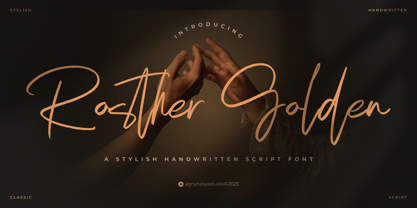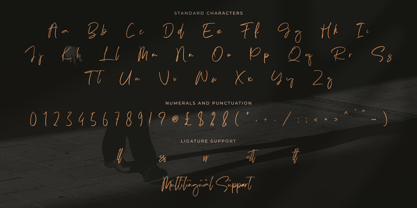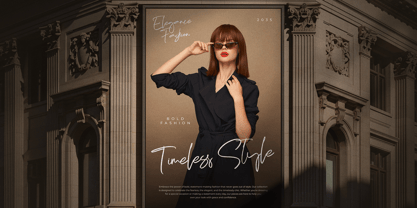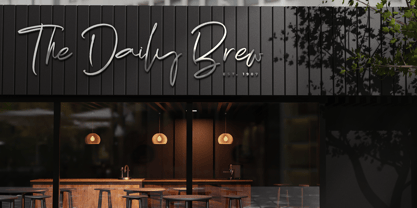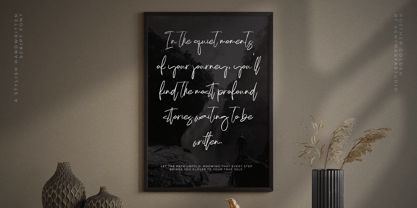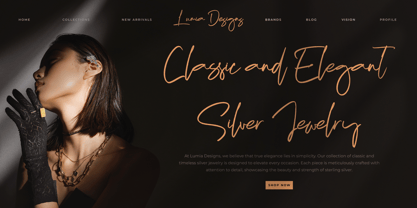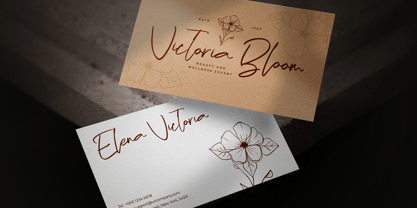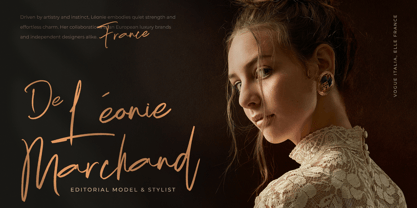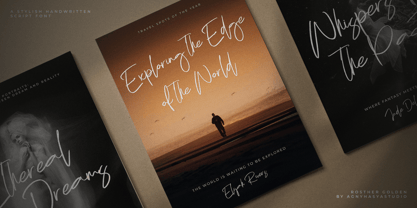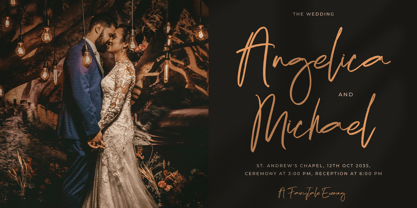
Rosther Golden
by Agny Hasya Studio
The Rosther Golden Font Family was designed by Firman Maulana and published by Agny Hasya Studio. Rosther Golden contains 1 styles. More about this family
Rosther Golden is a stylish script font that blends natural handwriting with a touch of modern sophistication. Each stroke flows effortlessly, giving your design a smooth and expressive feel that works beautifully in both casual and formal contexts. Perfect for elegant branding, personal signatures, wedding invitations, logo design, or standout social media graphics, Rosther Golden brings warmth and authenticity to every letter. Its handcrafted details create a sense of movement and personality, making each word come alive with charm and confidence. Keep it elegant, stay expressive, and keep creating with Rosther Golden. Warm regards, agnyhasyastudio